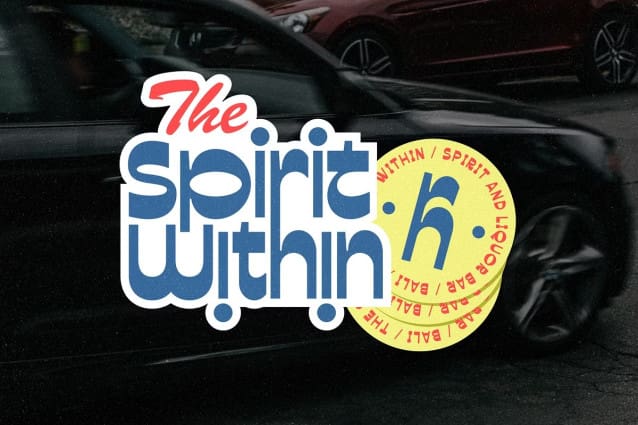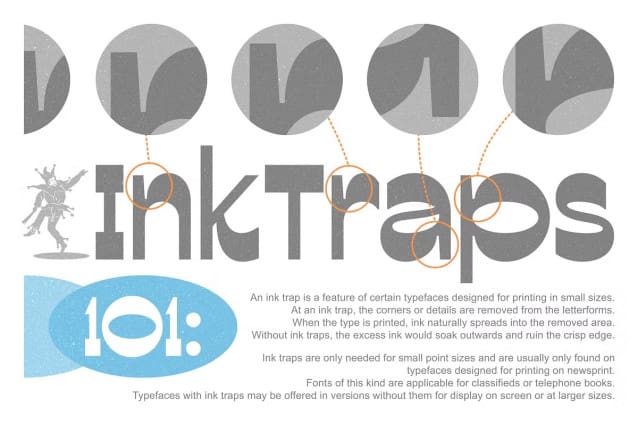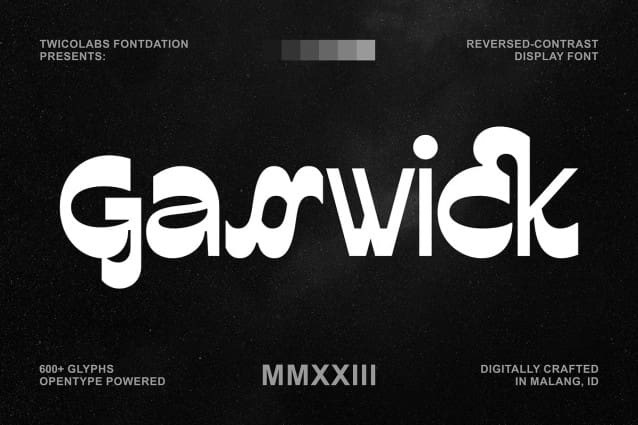
Gasswick Display Font
Gasswick Display Font, a sans-serif that having the reversed-contrast personality. Suits best for logo, quote design, headline, etc. Consists of 600+ characters (Multilingual and OpenType featured glyphys included), this font is a must have for all you designers!